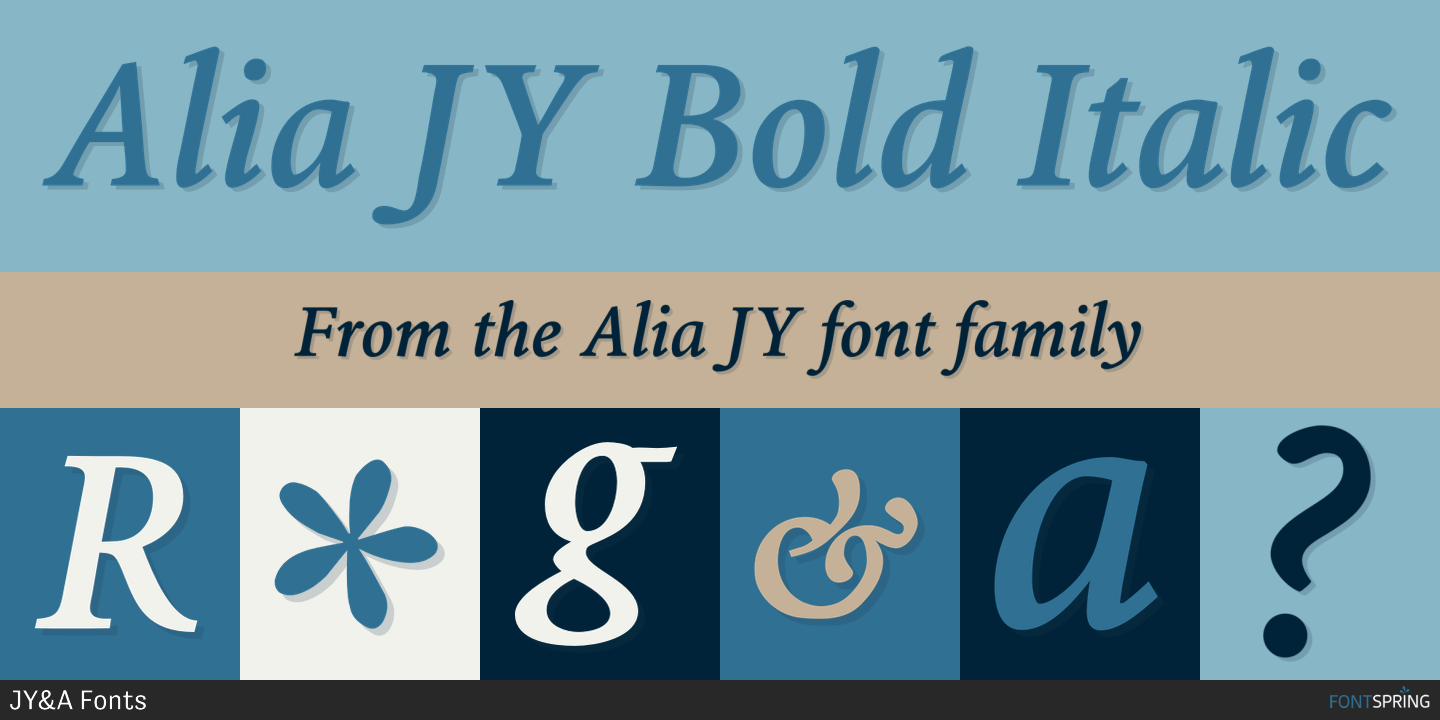
Alia Jy Font Free Download - Web alia jy fonts free downloads. Web alia jy complete family pack is a versatile typeface found by jy&a and created by jack yan, specifically designed.
Web alia jy fonts free downloads. Web alia jy complete family pack is a versatile typeface found by jy&a and created by jack yan, specifically designed.
Web alia jy complete family pack is a versatile typeface found by jy&a and created by jack yan, specifically designed. Web alia jy fonts free downloads.
Web alia jy fonts free downloads. Web alia jy complete family pack is a versatile typeface found by jy&a and created by jack yan, specifically designed.
Web alia jy complete family pack is a versatile typeface found by jy&a and created by jack yan, specifically designed. Web alia jy fonts free downloads.
Web alia jy fonts free downloads. Web alia jy complete family pack is a versatile typeface found by jy&a and created by jack yan, specifically designed.
Web alia jy complete family pack is a versatile typeface found by jy&a and created by jack yan, specifically designed. Web alia jy fonts free downloads.
Alia JY Complete Family Pack
Web alia jy complete family pack is a versatile typeface found by jy&a and created by jack yan, specifically designed. Web alia jy fonts free downloads.
Web alia jy complete family pack is a versatile typeface found by jy&a and created by jack yan, specifically designed.